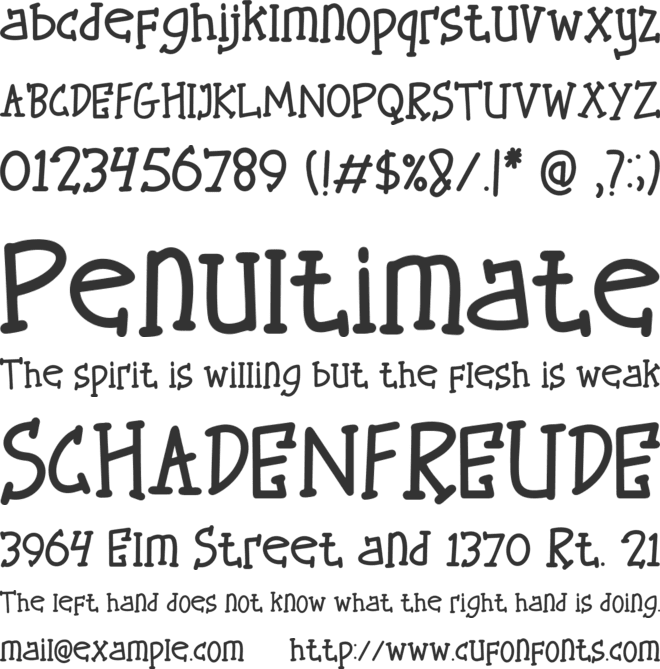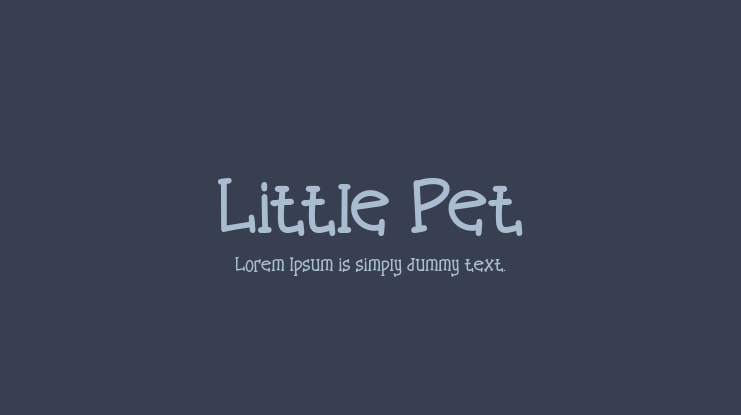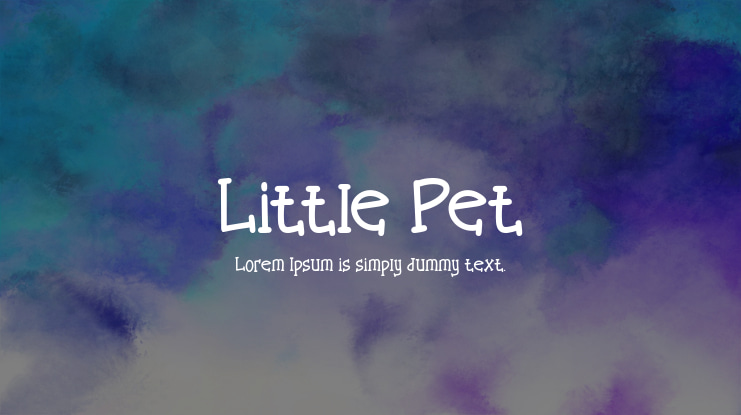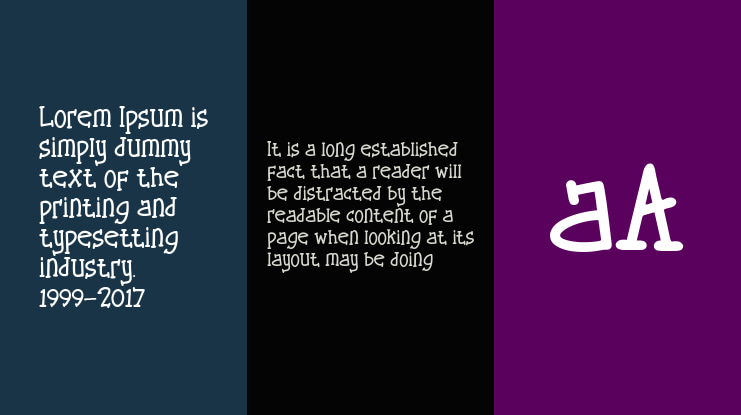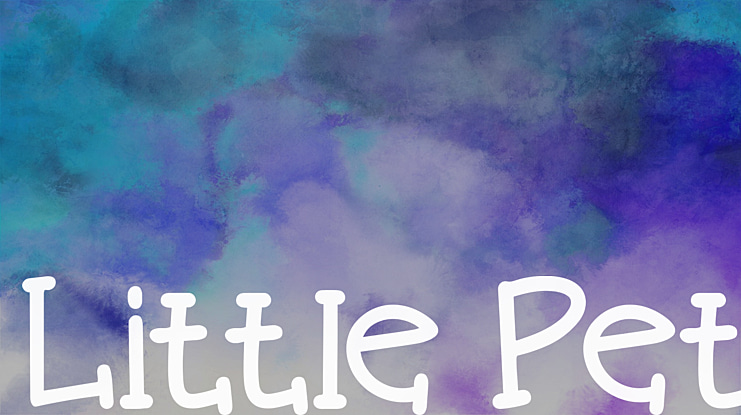
Little Pet Font
Little Pet Display Font
This is an adorable serif font, perfectly suitable for creative projects related to animals! Use it for pet shop branding, animal stores, animal care, veterinary offices, and other projects alike!